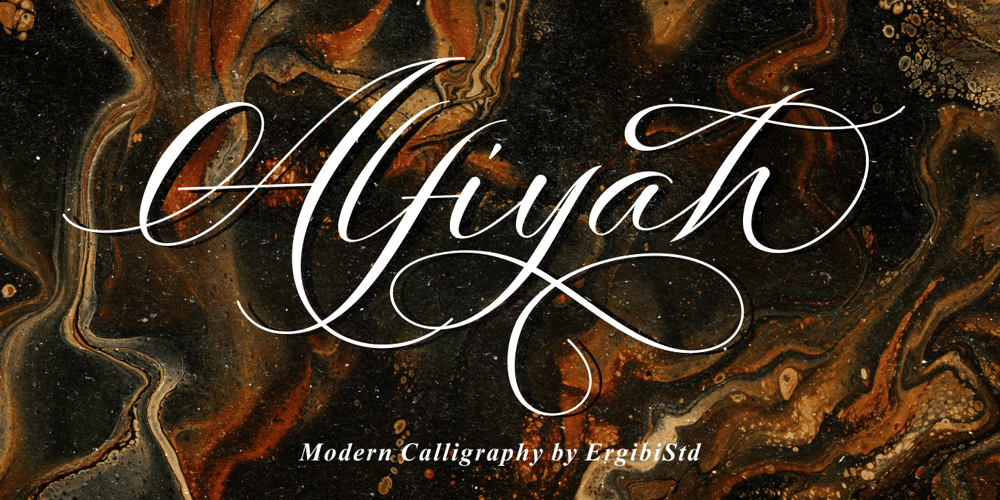
Alfiyah
Alfiyah font
Alfiyah Font Family was designed by Riyadh Rahman and published by Ergibi Studio. Alfiyah contains 1 styles and family package options. Intrducing Alfiyah is a calligraphy script font that comes with a very beautiful change, a kind of classic decorative copper script with a modern touch, made with great detail to present a stylish appearance and of course very easy to read.The classic style is equipped with an alternative stylistic which is very suitable to be applied in various formal forms, especially wedding invitations, labels, restaurant menus, logos, fashion, make up, stationery, novels, magazines, books, greeting/wedding cards, packaging, labels or all kinds of advertisements.Features Regular Version Uppercase & Lowercase Number & Symbol Ligatures Stylistic Alternates Multilingual and PUA Encoded If there is a problem, question, or anything about my fonts, don’t hesitate to ask! Big Thanks ~ Ergibi Studio